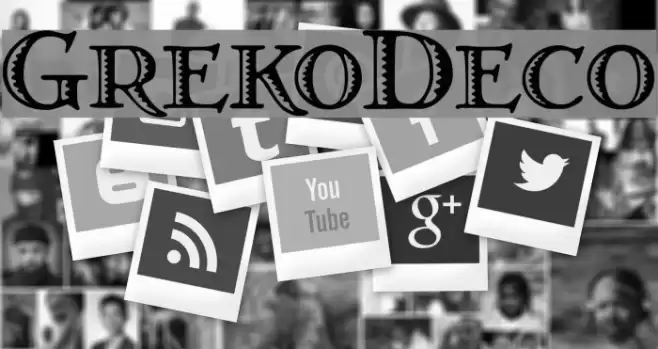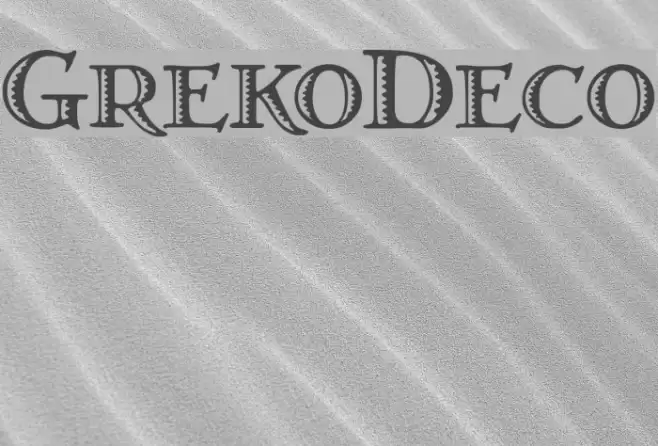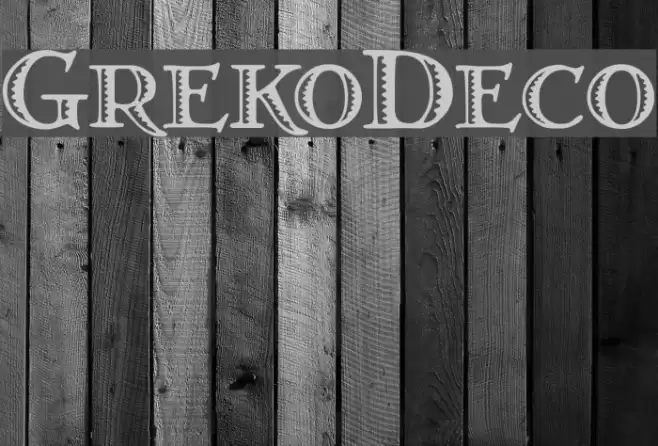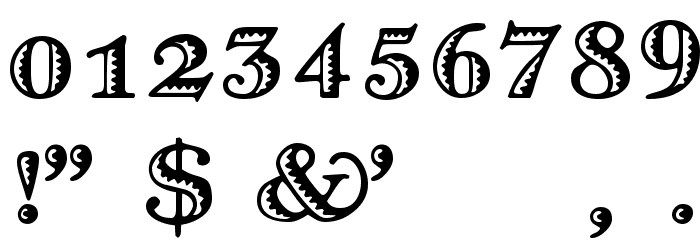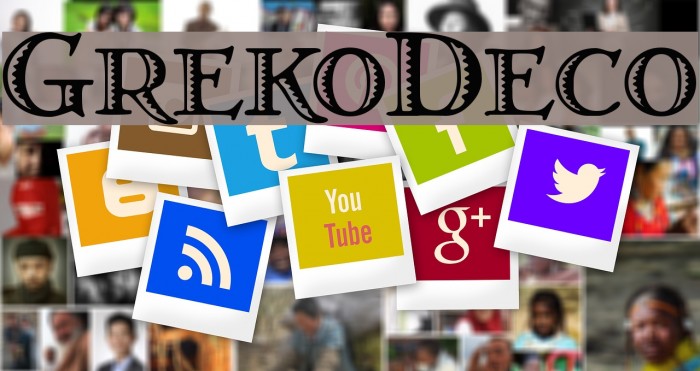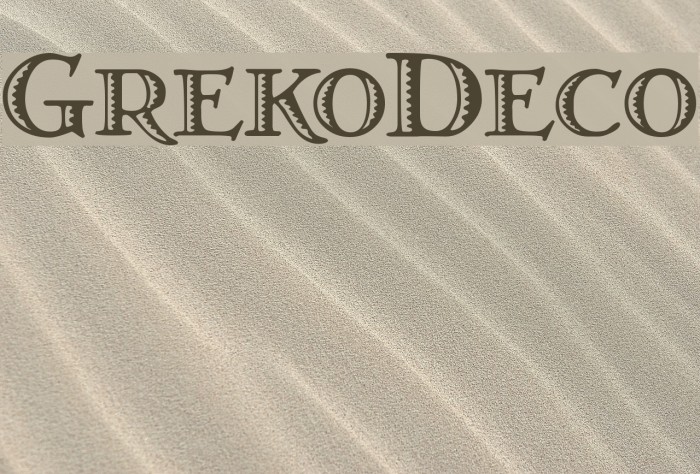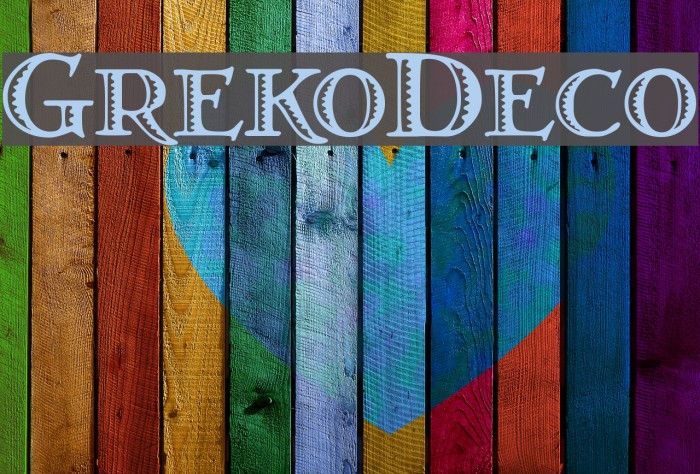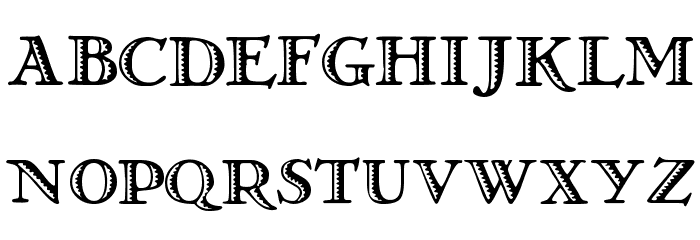
GrekoDeco Font
GrekoDeco Description
This font features a unique decorative style with intricate patterns within each character, reminiscent of Art Deco influences. The uppercase letters are bold and striking, with a distinct geometric flair that adds a sense of elegance and sophistication. The lowercase letters maintain the same decorative elements, ensuring consistency throughout the typeface. The numerals are equally ornate, making them suitable for eye-catching displays. Special characters are designed with the same attention to detail, enhancing the overall aesthetic. This font's intricate design makes it ideal for projects that require a touch of vintage charm and artistic flair.
A decorative font with Art Deco influences, featuring intricate patterns and geometric elegance from Retro fonts.
- Proposed Projects: Ideal for vintage-themed posters, luxury branding, wedding invitations, and artistic book covers.
- Overall Style: Vintage